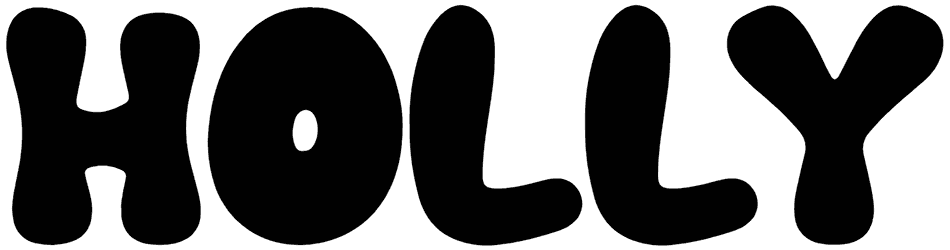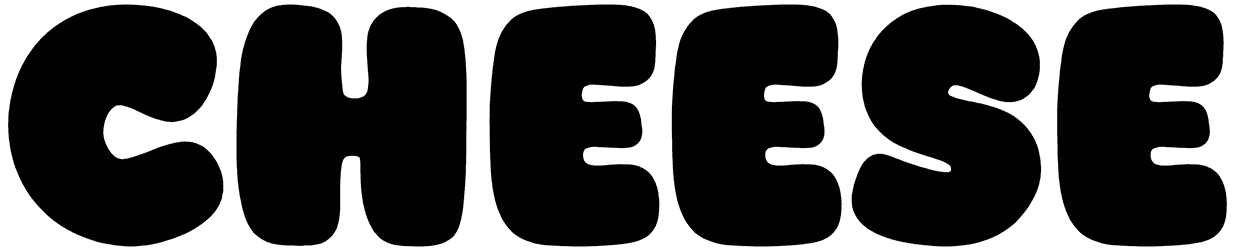
Unicorn Font
Unicorn font is very widely used because the characters were designed in a fantasy way. This balloon and bubble font can be a great choice for designing logotypes, business cards of children’s brands, and food brands such as snacks or chocolates. Considering that this cartoon font does not support lowercase letters, but in large dimensions, your advertising would be one of the most wonderful presentations.